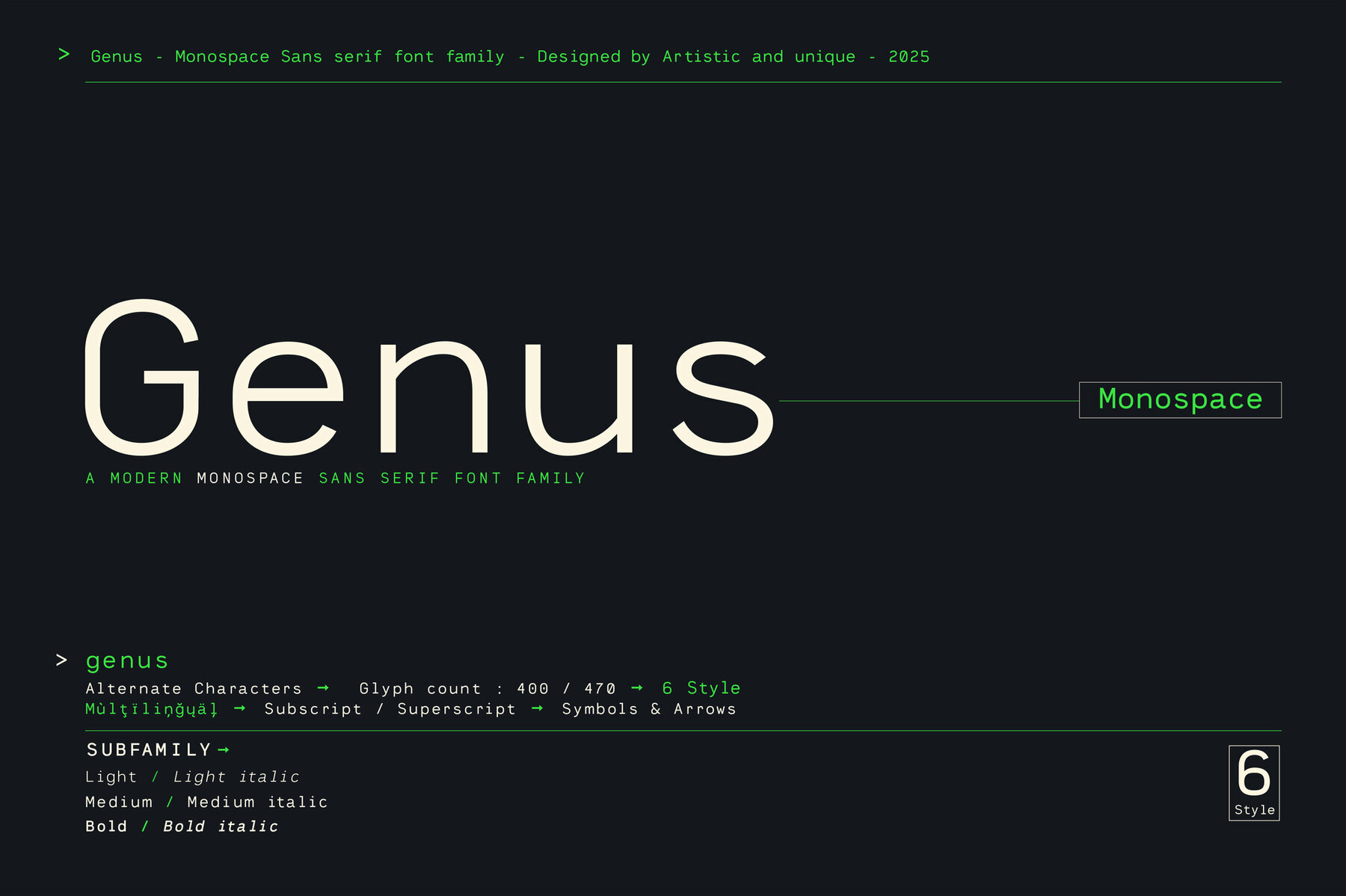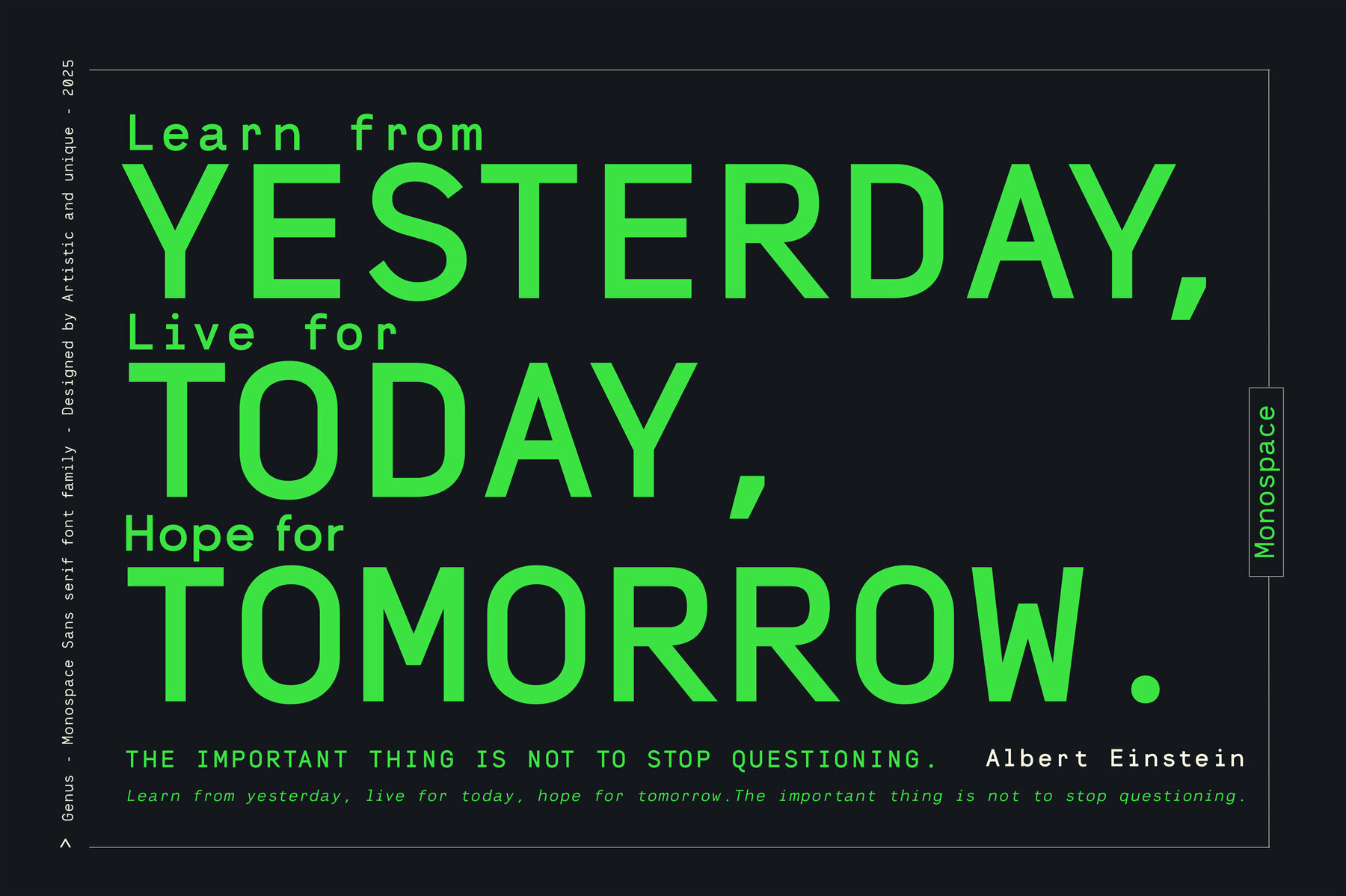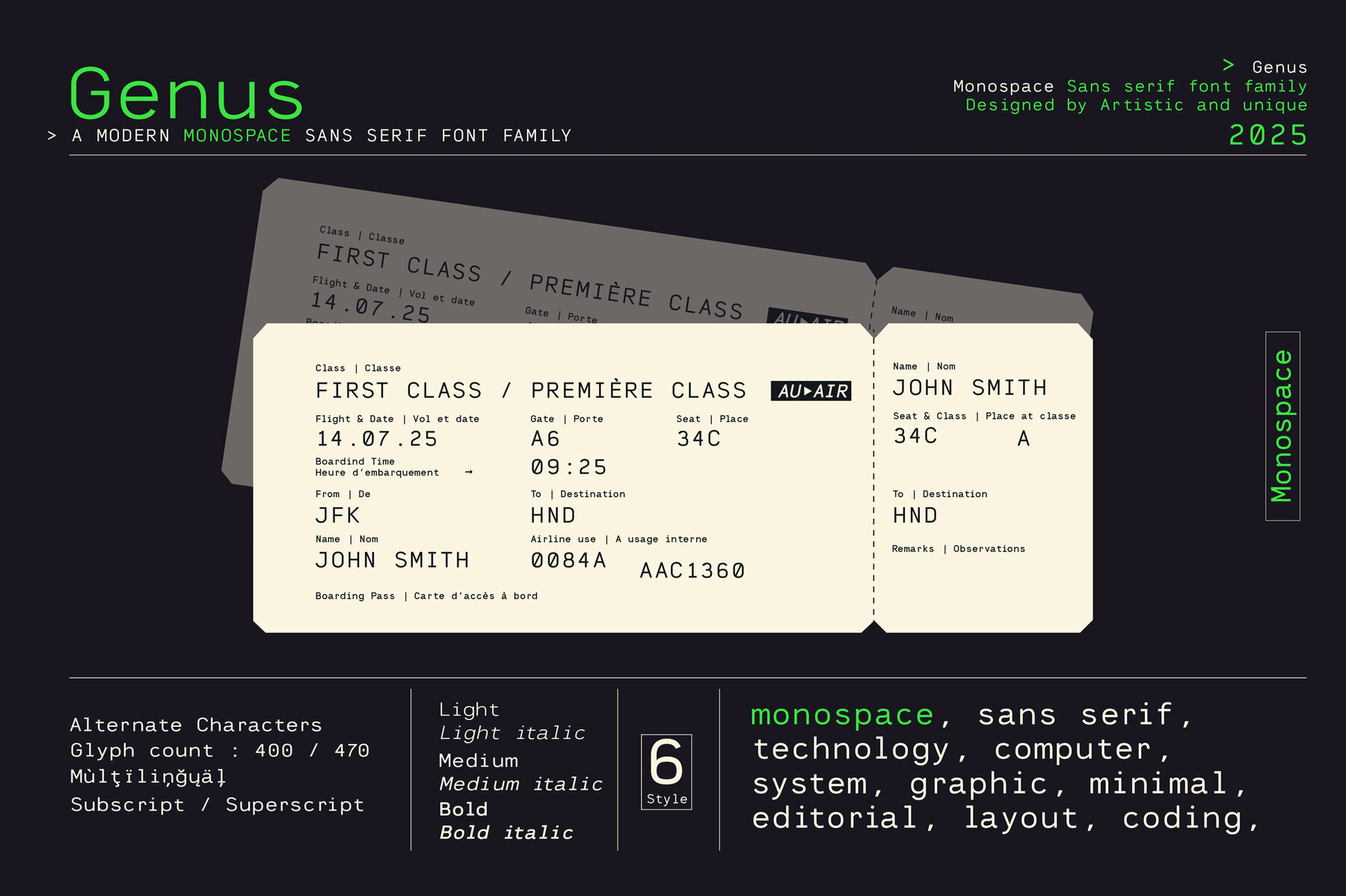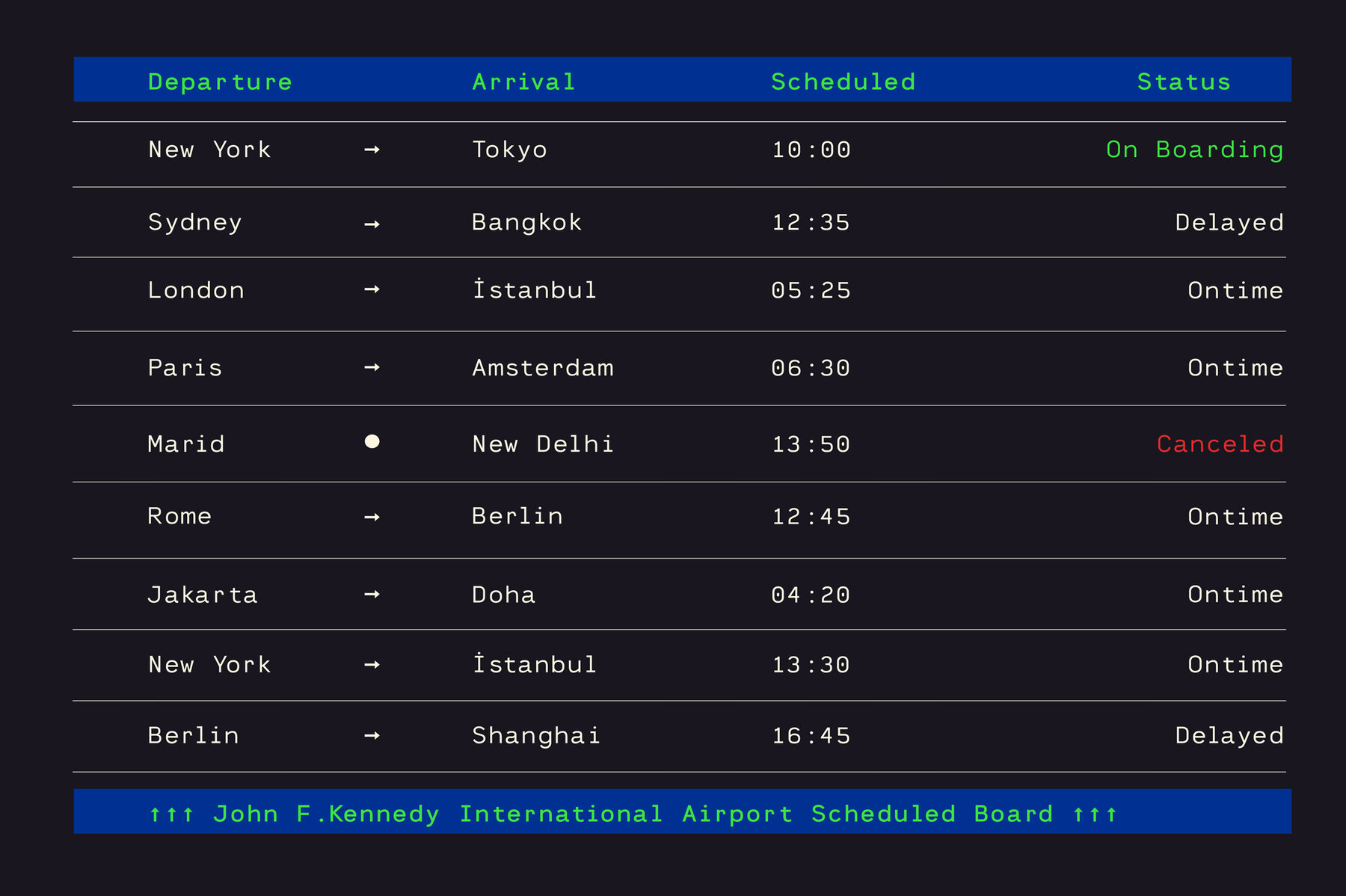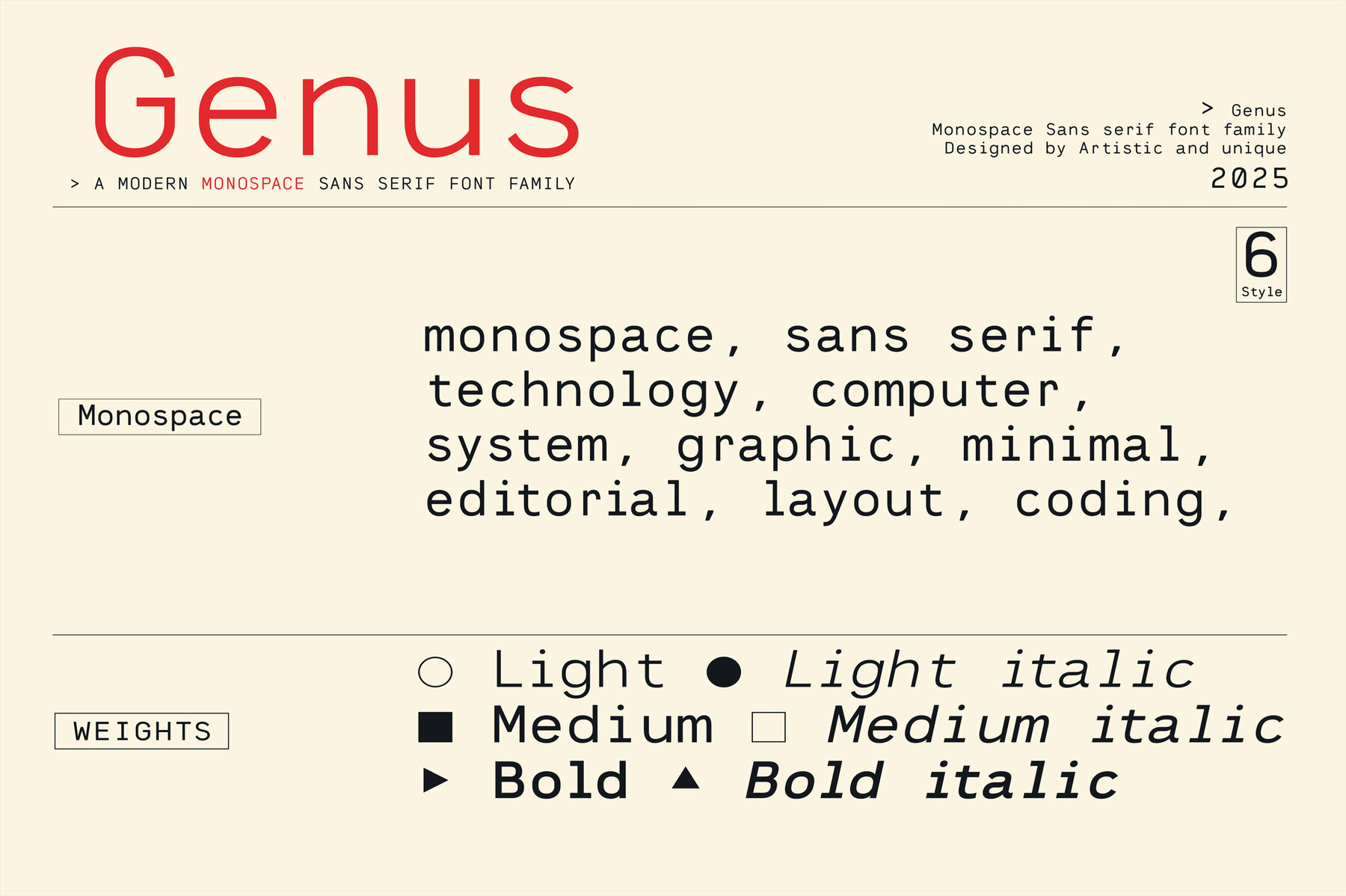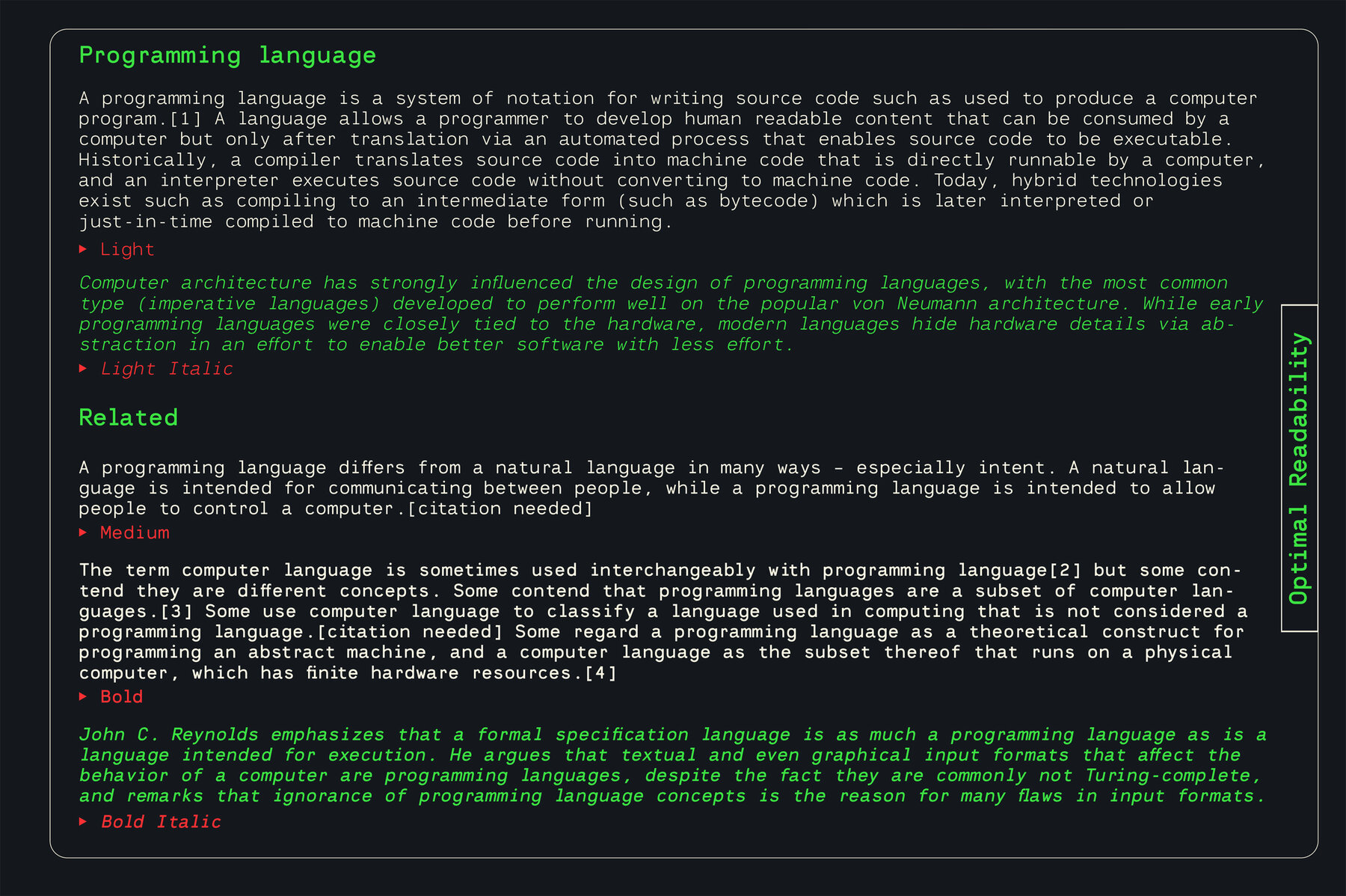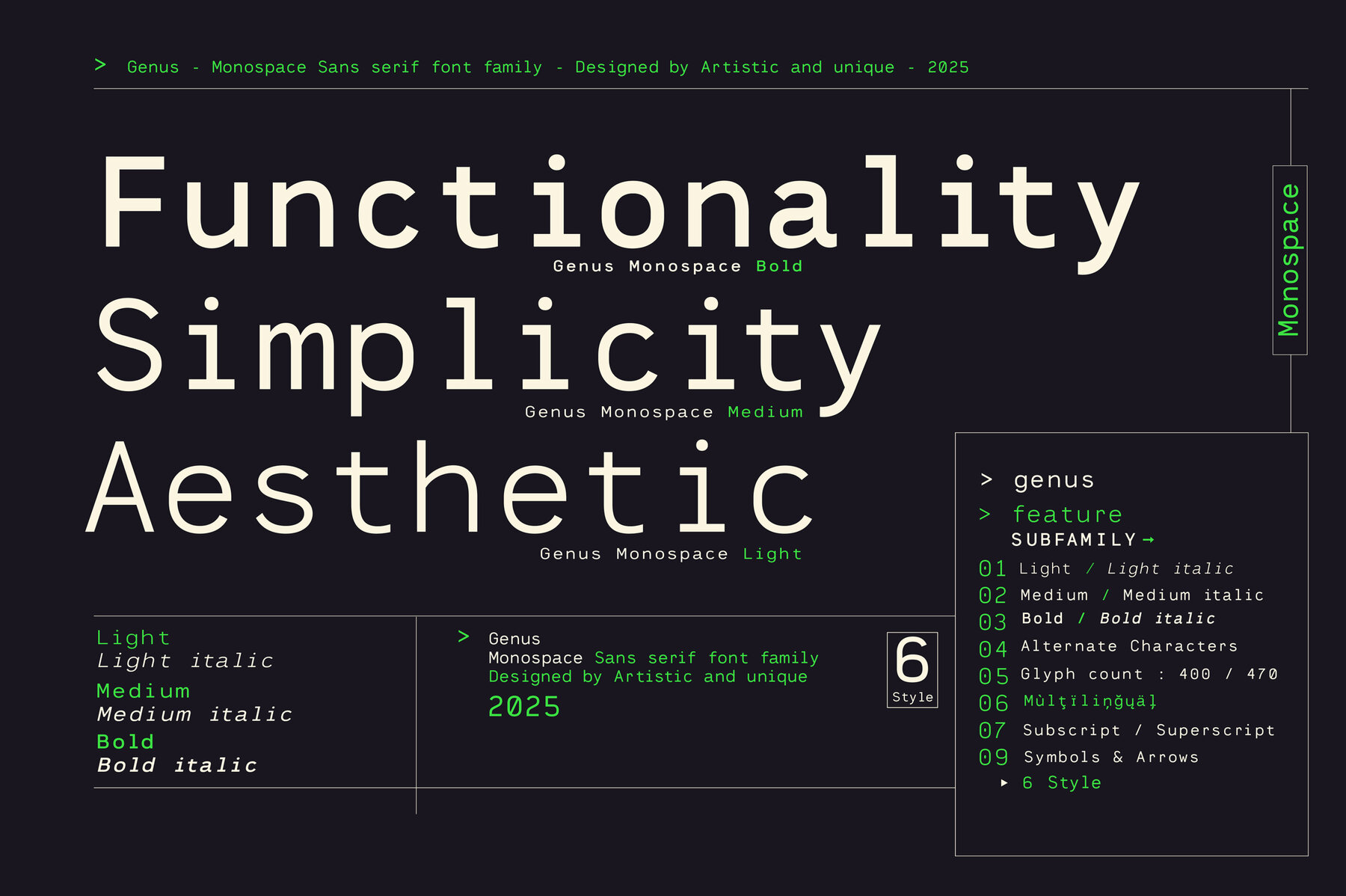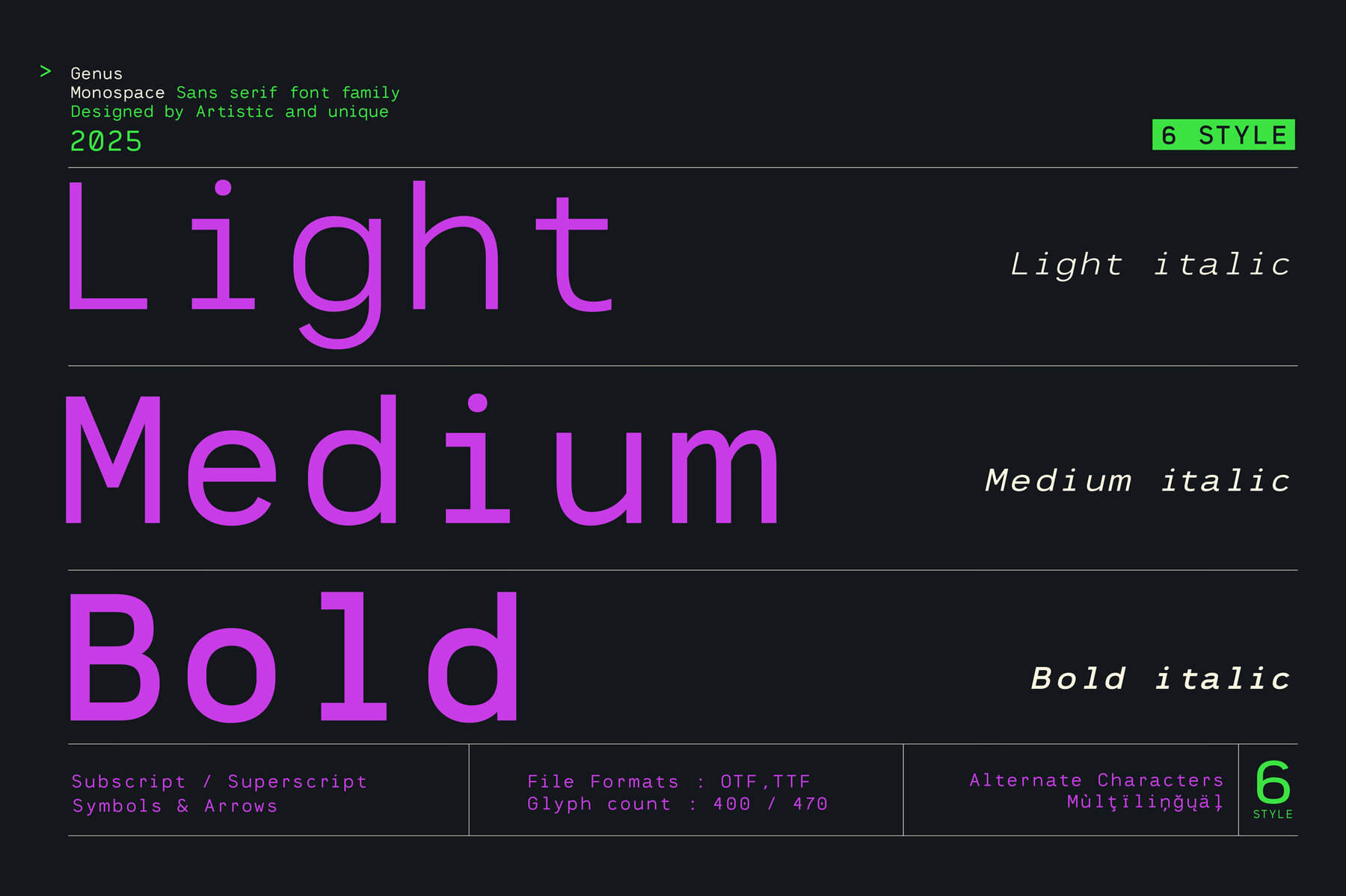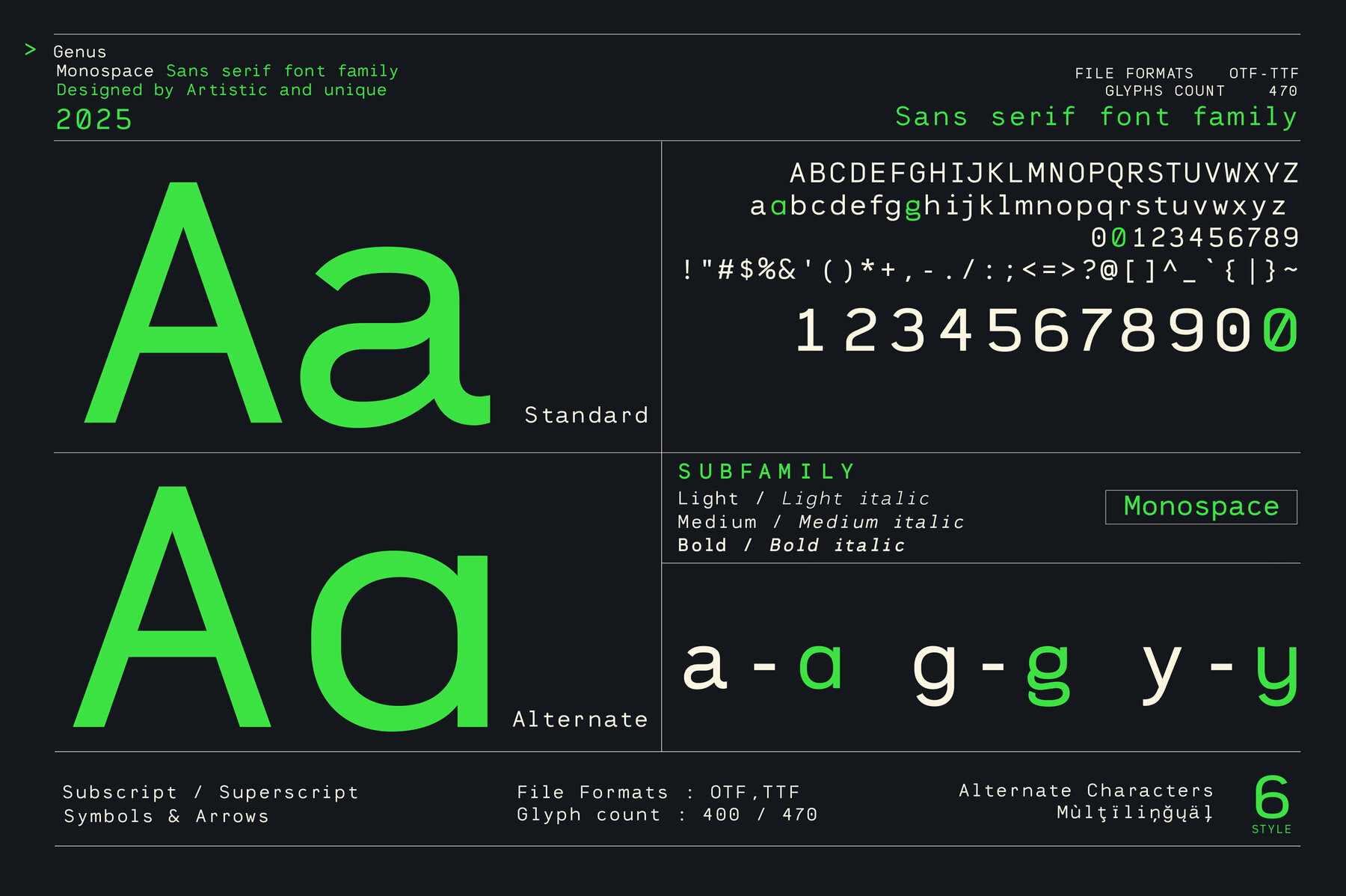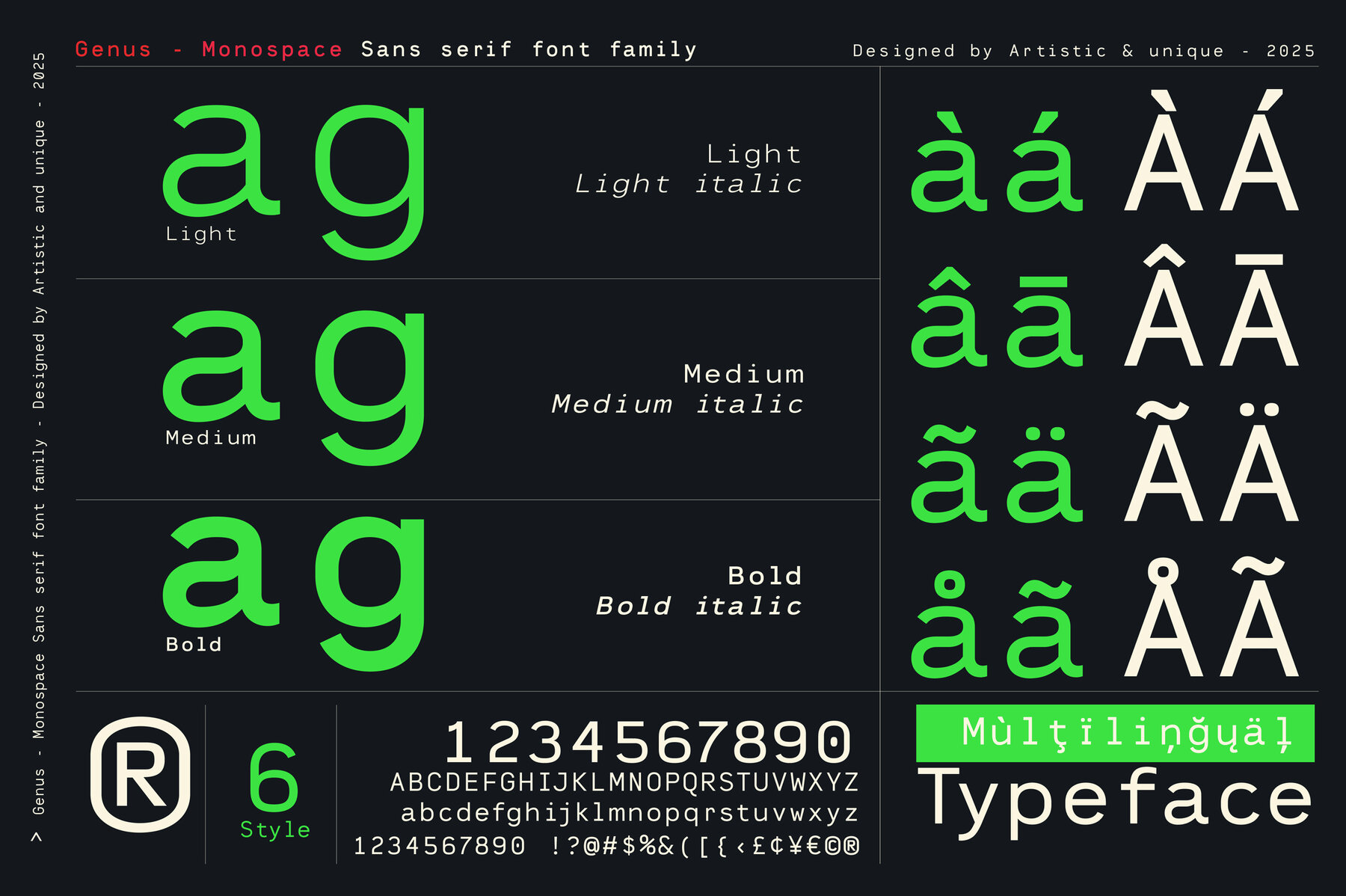
Genus Font
Genus Monospace is a highly functional sans serif font family, available in six unique styles with extensive multilingual support. Each style contains 470 glyphs, incorporating a broad range of elements such as letters, small caps, numbers, punctuation, and symbols. Designed for optimal performance in both print and digital formats, this monospaced font family is a reliable choice for various design needs. The OpenType features within Genus Monospace greatly enhance its usability. With Small Caps, Case-Sensitive Punctuation, Stylistic Alternates, Fractions, Subscripts, Superscripts, and Ligatures, this font ensures that your design projects will stand out. Its robust structure guarantees high readability, even at smaller sizes, making it ideal for coding, user experience, web, and graphic design. Genus Monospace brings a compelling aesthetic to a wide array of creative projects. Its versatility extends beyond coding, offering visual appeal in graphic and product design, web design, and publishing. Elevate your creations with its visually engaging features, designed to meet the diverse demands of modern design.Genus Monospace: A Versatile Font Family